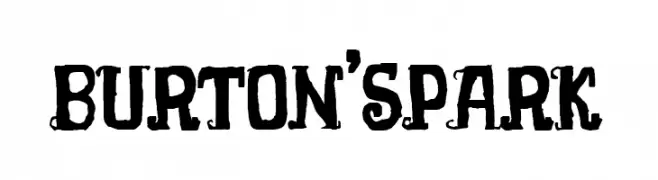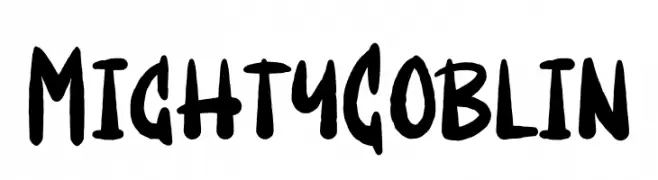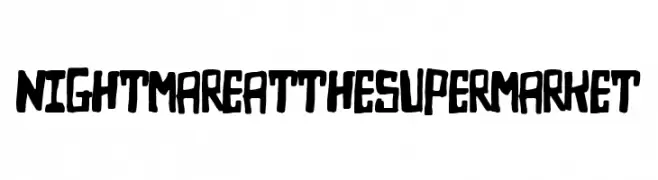
A bold, decorative font with a playful, vintage style.
A bold, dripping font ideal for horror and Halloween themes.
A playful and bold font with exaggerated curves and angles, perfect for creative projects.
A spooky, dripping font ideal for Halloween themes.
A bold, distressed font with a spooky, hand-drawn appearance.
A playful, hand-drawn font with a quirky, spooky vibe.
A bold, playful handwritten font with thick strokes and consistent weight.
A bold, hand-drawn font with an irregular and quirky style.
A playful, handwritten script font with elegant curves and a whimsical style.
A spooky, dripping font perfect for Halloween-themed designs.
A bold, chaotic decorative font with jagged, swirling shapes.
A spooky, hand-drawn font with jagged edges and a ghostly appearance.
A bold, rounded font with a playful and whimsical style.
A whimsical, hand-drawn font with a playful and textured design.
A playful, Halloween-themed font with characters carved into pumpkin shapes.
A bold, brush-style font with dynamic and jagged strokes for an energetic look.
A bold, playful font with exaggerated curves and a cartoonish style.